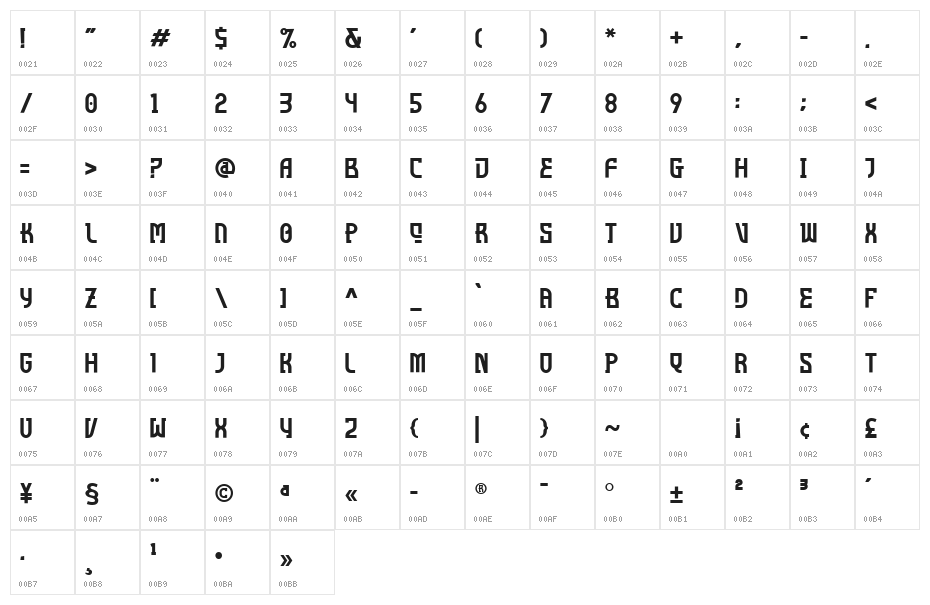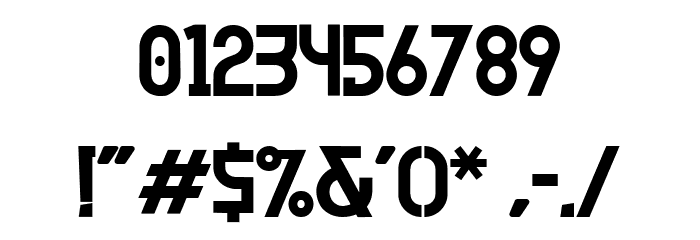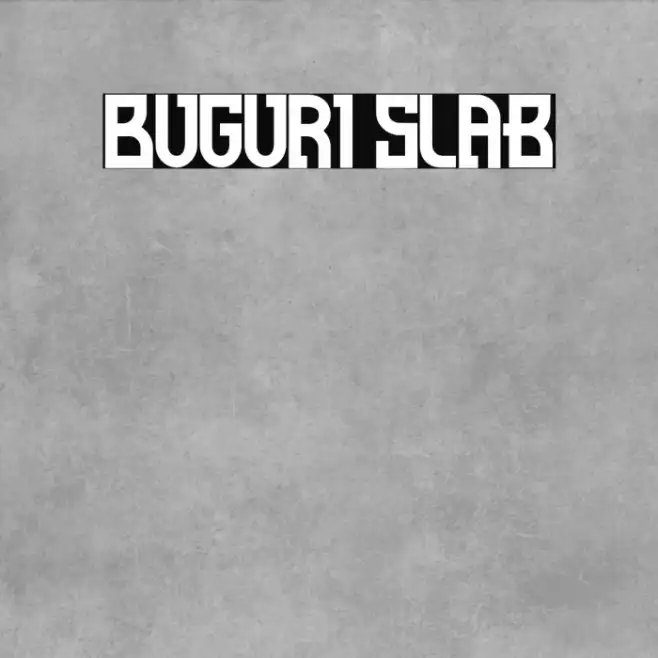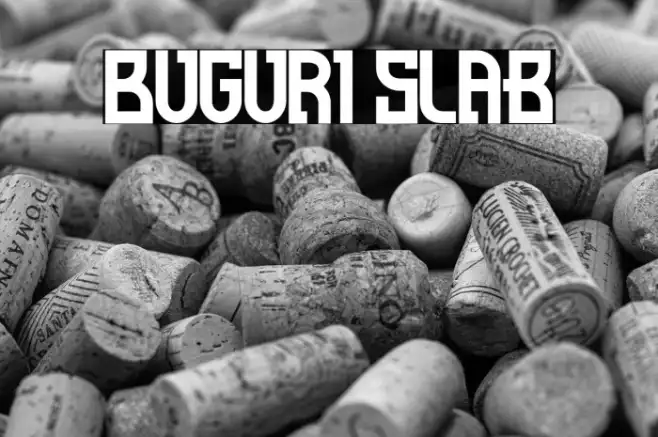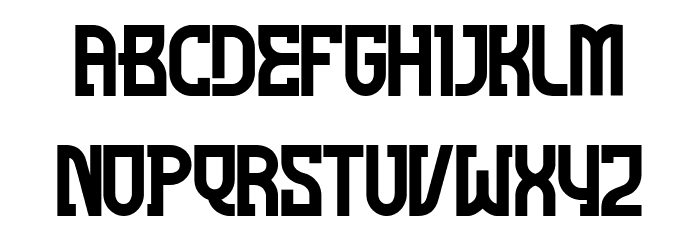
Buguri Slab Font
Buguri Slab Description
This font features a bold and striking design with a strong geometric influence. The characters are constructed with thick, uniform strokes that create a sense of stability and strength. The angular shapes and sharp edges give it a modern and industrial feel, making it stand out in any design. The uppercase and lowercase letters maintain a consistent style, with the uppercase being particularly prominent. The numerals and special characters are equally bold, ensuring a cohesive look across all text elements. This font is ideal for projects that require a commanding presence and a contemporary aesthetic.
| Proposed Projects | Ideal for branding, posters, headlines, and any design needing a strong, modern impact. |